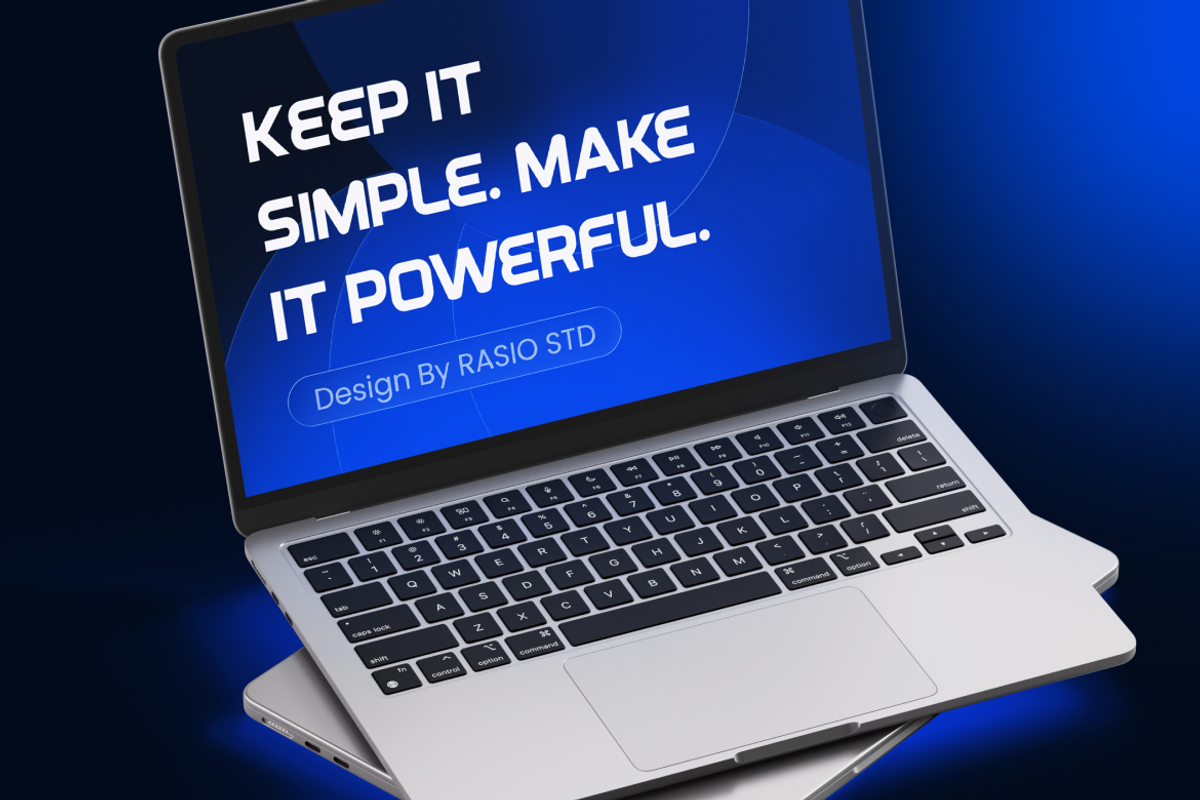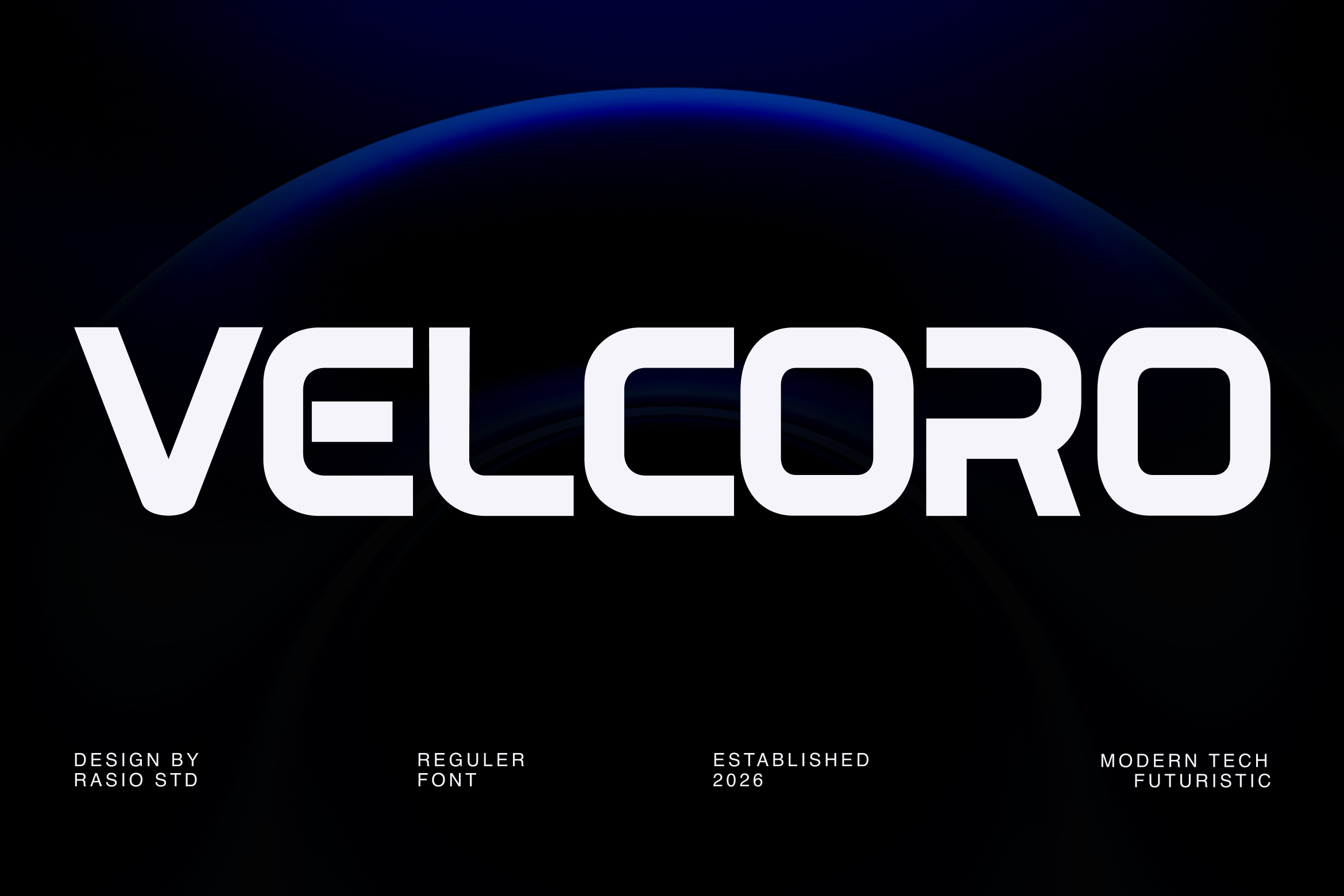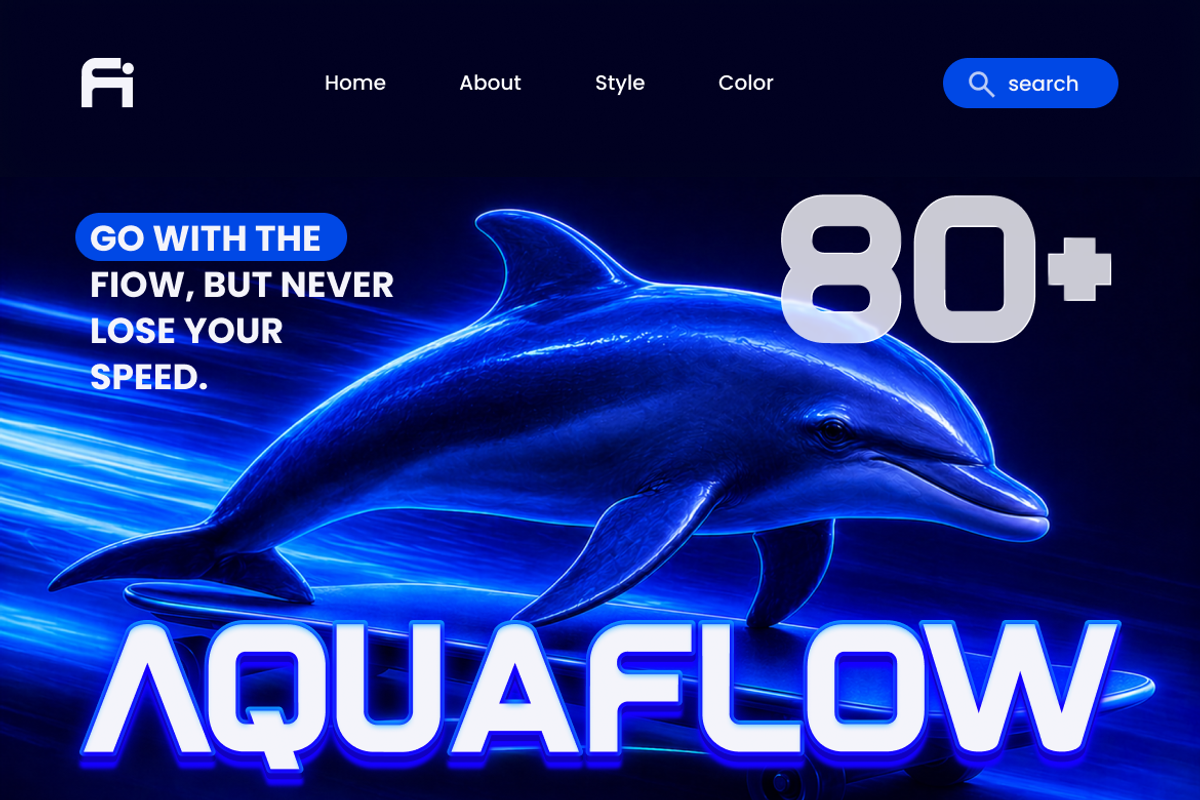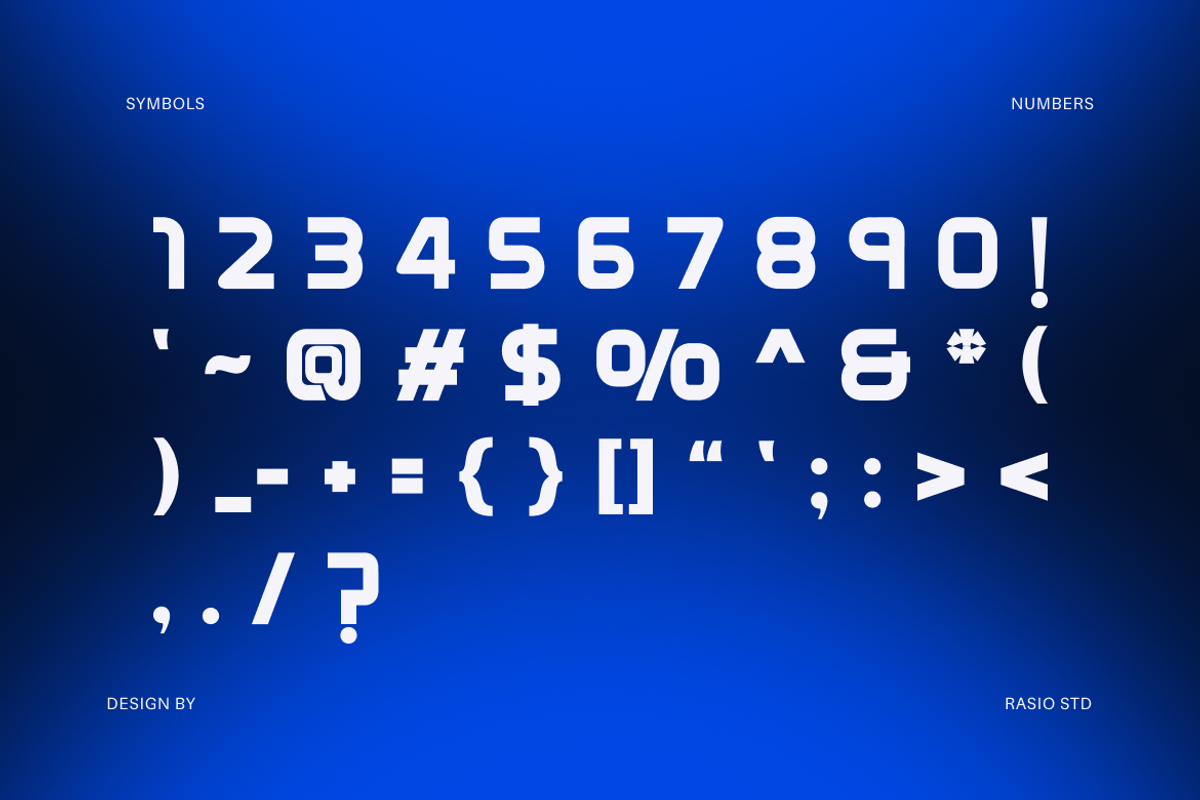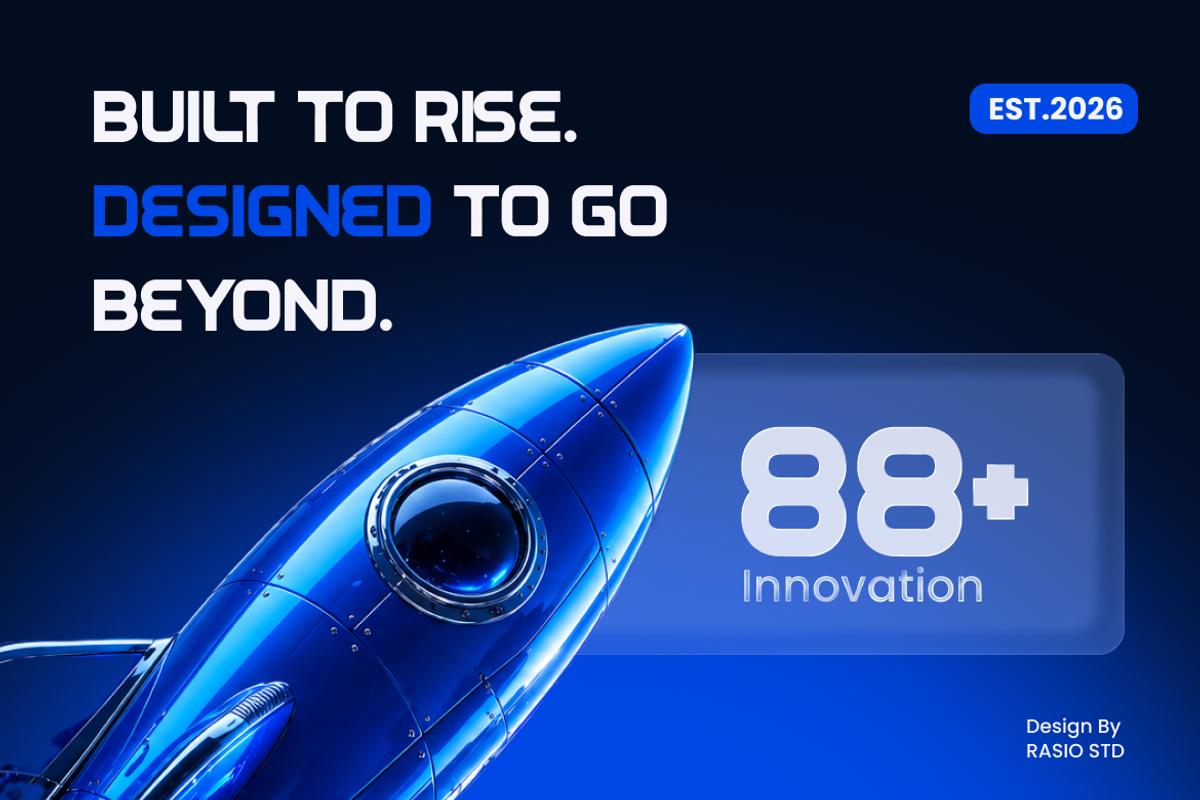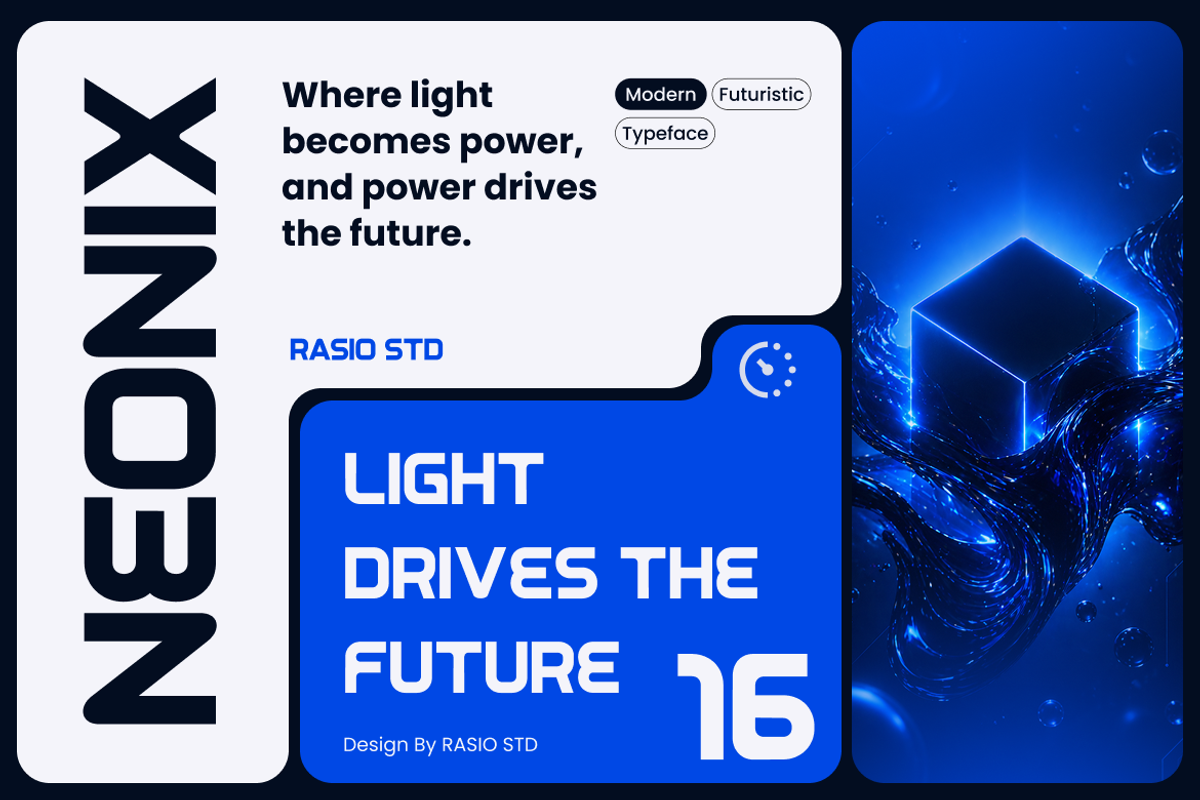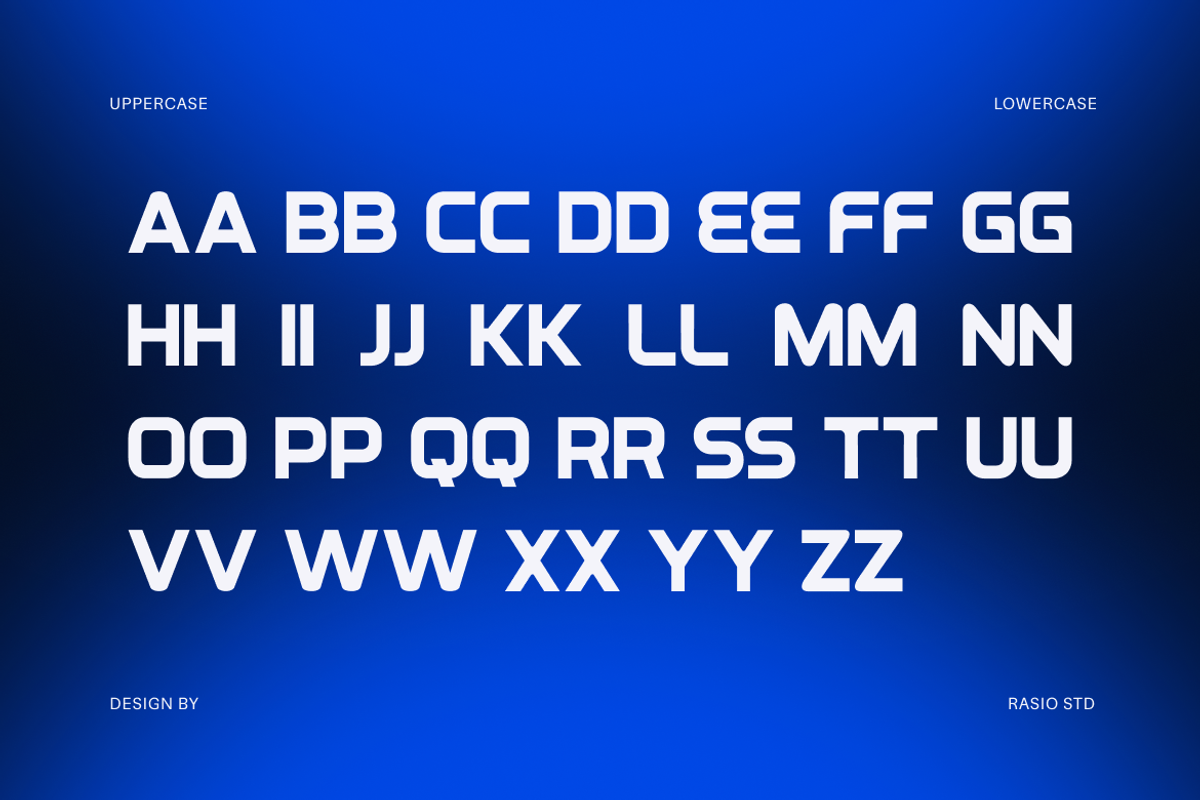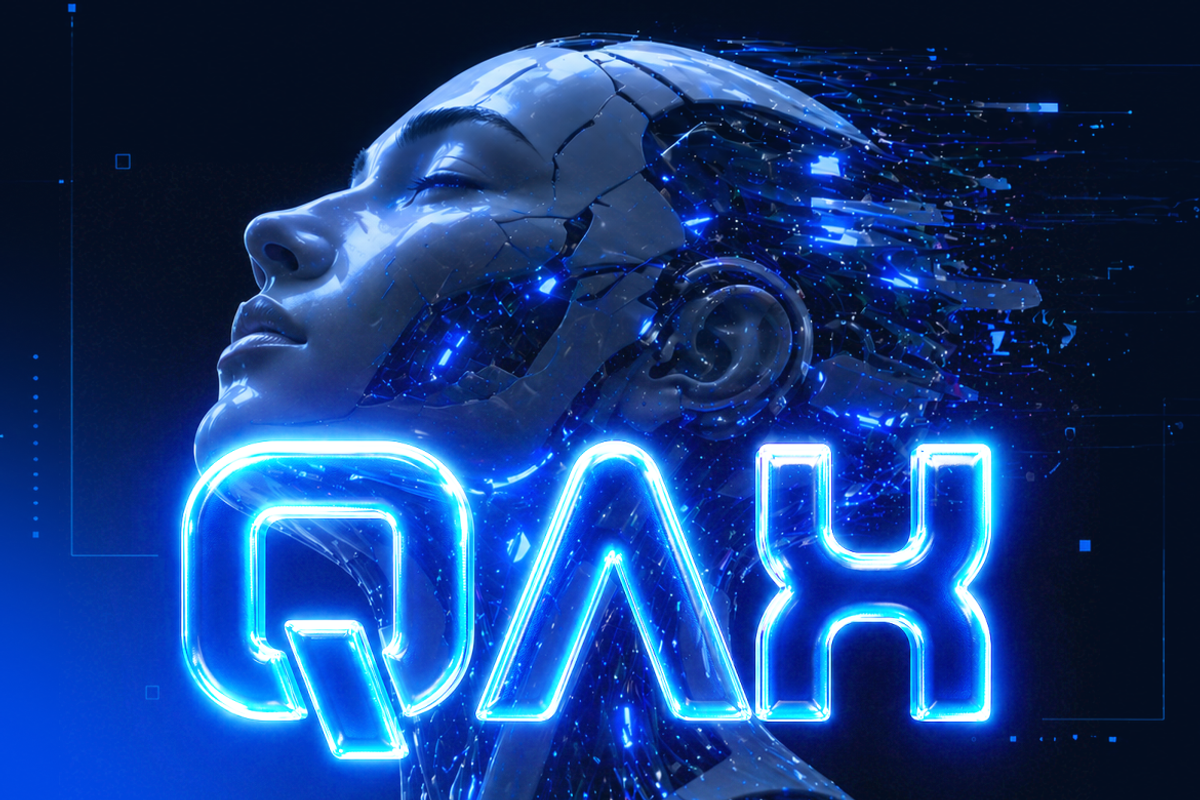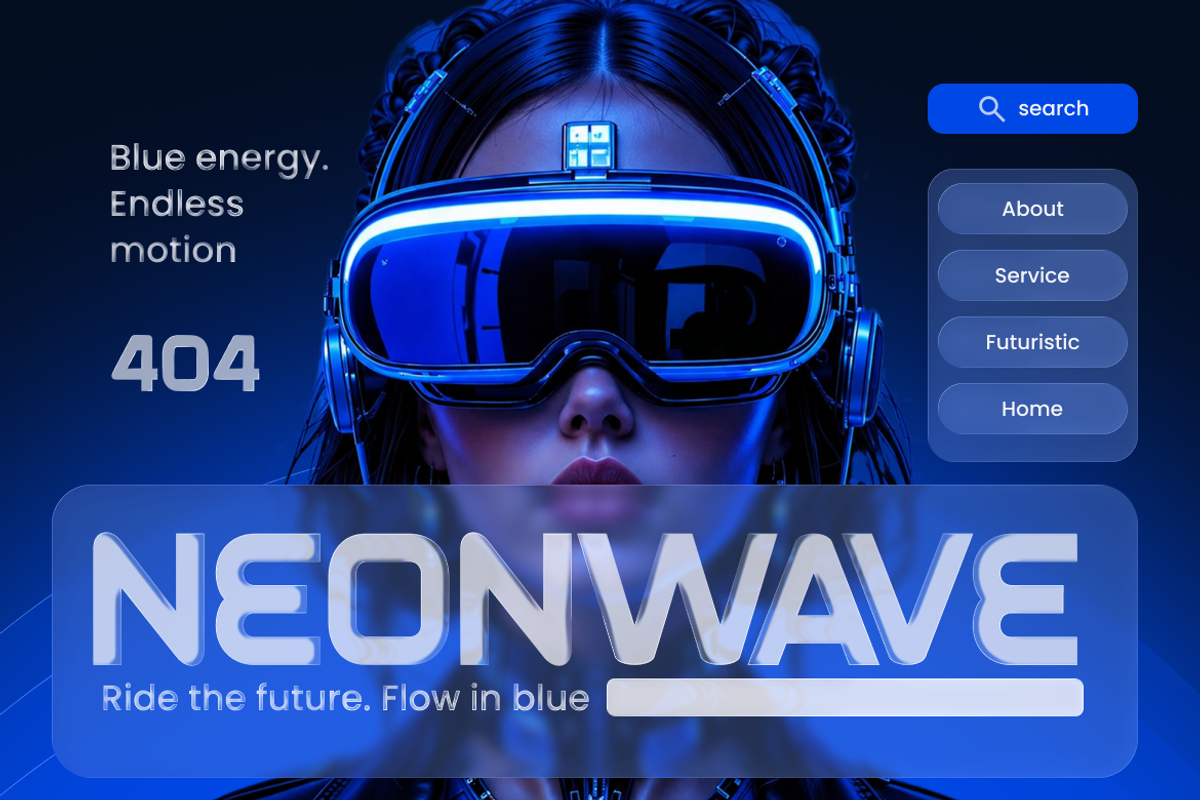
Velcoro Modern Tech Futuristic Font
Velcoro Modern Tech Futuristic Font features a modern geometric sans serif style with rounded corners, bold proportions, and sleek futuristic construction. The font includes uppercase, lowercase, numerals, and punctuation with clean techno-inspired letterforms suitable for high-impact visual projects. Designed with a minimal sci-fi aesthetic, this typeface works perfectly for branding, digital interfaces, gaming visuals, technology promotions, and modern editorial layouts.
Velcoro is highly relevant for futuristic and technology-focused visual projects that require a sleek, bold, and modern appearance. This font works effectively for gaming graphics, esports branding, sci-fi movie titles, startup identities, digital product presentations, UI/UX interfaces, social media campaigns, automotive visuals, technology advertising, and modern poster layouts that demand a strong futuristic atmosphere.
Futuristic geometric construction with sleek techno-inspired forms
Rounded edges and smooth corners for a modern digital appearance
Wide letter proportions balanced with compact sci-fi styling
Consistent stroke weight delivering clean and bold readability
Minimalist industrial aesthetic with high-tech visual character
Futuristic branding systems for technology startups and innovation companies
Gaming visuals, esports identities, and sci-fi promotional graphics
UI/UX interfaces for digital platforms, software, and mobile applications
Automotive campaigns and aerospace-inspired presentation designs
Social media templates and digital advertisements with modern tech aesthetics
Screen-optimized kerning for responsive web design
Supports numerals, punctuation, and extensive symbol set